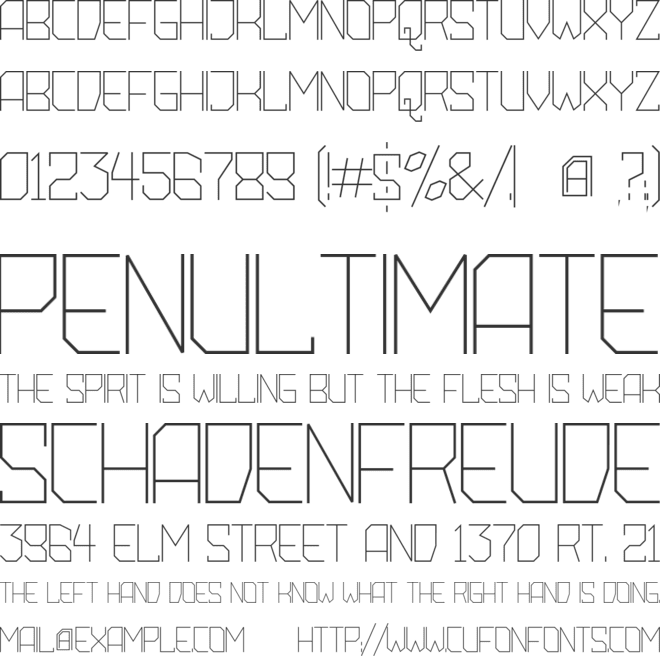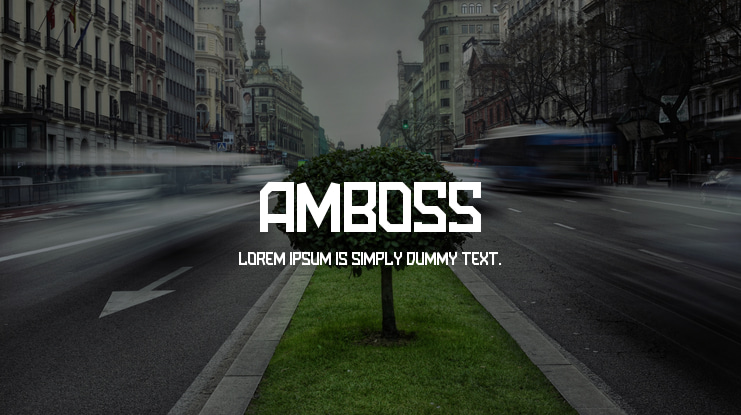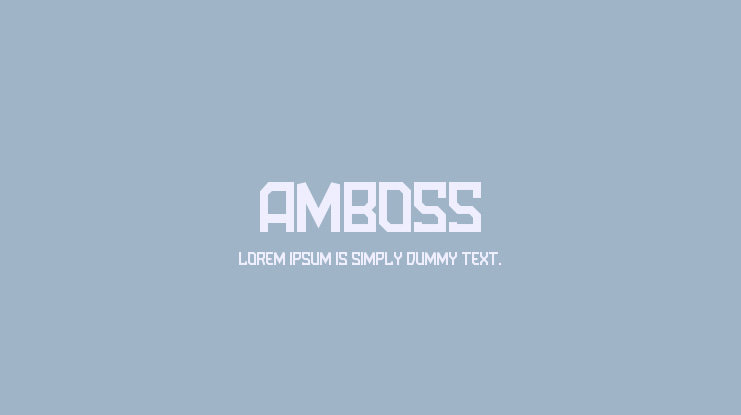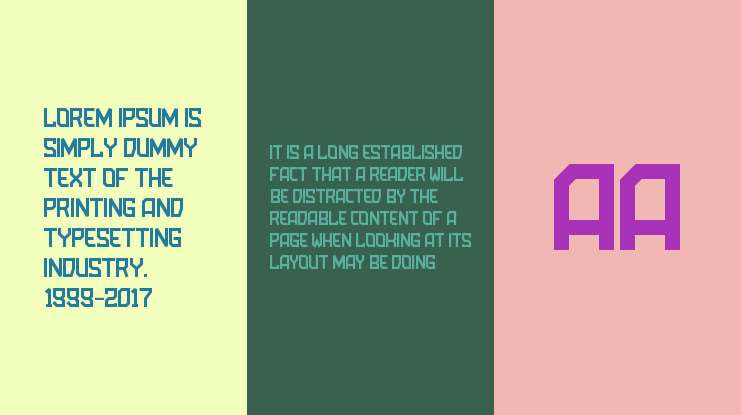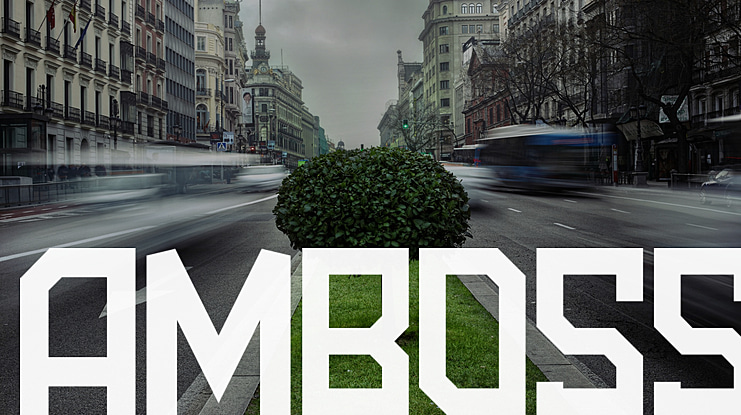
Amboss Font Family
Amboss (German for anvil) is the name of this font family. Yes, you heard right: This font contains a package of five different fontstyles:
Amboss Display (fat & heavy for headlines) Amboss Display Rounded (also fat, but rounded) Amboss Display Outline Amboss ExtraLight (very thin and fragile) Amboss ExtraLight Rounded (quite elegant and fragile)